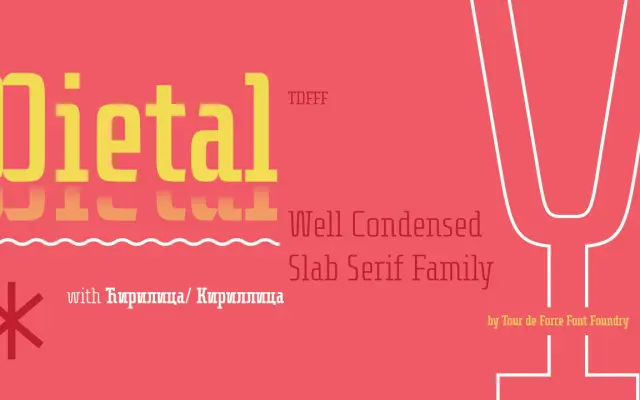
Dietal
Tour de Force · Dušan Jelesijević · 2019
A condensed slab serif in five weights, available in curved and sharp joining variants, blending western, calligraphic and display influences.
Designed by Dušan Jelesijević and released in July 2019, Dietal spans ten styles across two subfamilies: the standard curved version and a sharp-joining counterpart. The family draws on a wide range of influences from sans and slab through to calligraphy and western display, giving it a versatility unusual for a condensed face. Extended Latin and Cyrillic coverage across 463 glyphs makes it well suited to multilingual display and editorial work.
Classified explicitly as slab serif by the foundry; the condensed proportions and mixture of western, calligraphic and display influences sit firmly within the slab category despite the eclectic stylistic range.